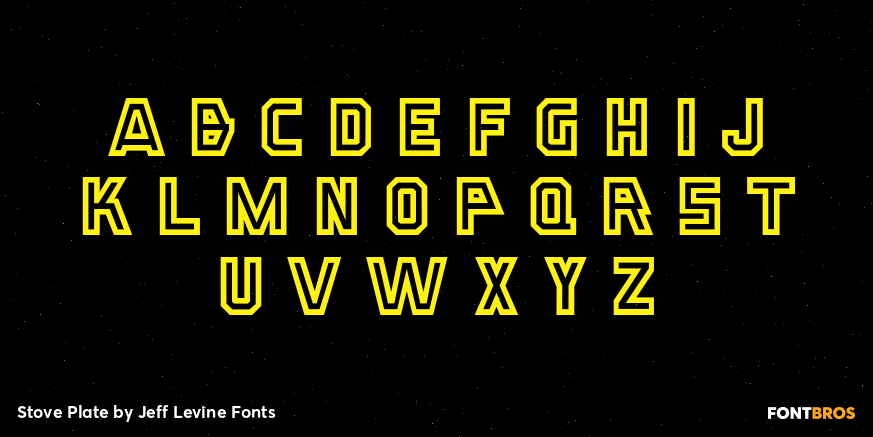
Stove Plate
Buy NowAn old printer's advertising cut for Red Star Oil Stoves yielded a typeface that was both vintage and somewhat techno at the same time.
Originally drawn as a slanted logo, the individual letters had an array of chamfered, angled and flat sides combined with a bold outline. This font is available in both vertical and oblique versions.